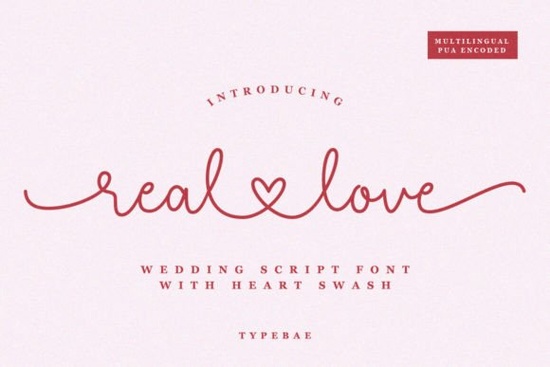
When you're planning a wedding project and need a script font that feels genuinely romantic, Real Love Font immediately comes to mind. This handwriting font exudes warmth and charm, with delicate swashes at the start and end of each stroke, plus lovely letter alternates that give you flexibility. Its standout feature is the heart-shaped connecting swashes that link letters, adding a sweet, handcrafted touch that’s perfect for invitations, signs, and personalized keepsakes.
What makes Real Love Font different from other script fonts?
Many script fonts mimic calligraphy but lack the extra personality that makes a design feel special. Real Love Font goes a step further with its built-in heart swashes. Instead of a simple loop connection between letters, you get a tiny heart shape that ties the word together. This works beautifully for words like “love,” “you,” “dear,” and other wedding staples. The font also includes alternate characters for certain letters, so you can mix and match styles to create a custom look without needing design software like Photoshop or Illustrator.
How can you use Real Love Font in real projects?
Wedding invitations are the obvious use, but this font also shines on:
- Save-the-date cards Use the heart swashes on “join” or “us” for a subtle romantic detail.
- Welcome signs and seating charts Large text with heart connections becomes a focal point.
- Thank-you notes A short, handwritten-style message feels personal and less formal.
- Favors and tags Adding a small heart swash to a guest’s name turns a generic tag into a keepsake.
- Social media graphics A calligraphy overlay on a photo with a heart tie-in stands out on Instagram or Pinterest.
Print-on-demand sellers can create mugs, pillows, or framed prints with romantic quotes, while small business owners might use it for logo watermarks or branding on gift wrap. The font works best when paired with a clean sans-serif for secondary text, so the heart shapes don’t get lost.
Are there any tricks for using romantic script fonts in designs?
Yes a few simple tips can make your project look professional:
- Test letter spacing Heart swashes can crowd together if spacing is too tight. Increase tracking slightly to let each heart shape breathe.
- Use color contrast On white or cream backgrounds, a deep burgundy or dusty rose makes the heart swashes pop. For dark backgrounds, a metallic gold or copper works well.
- Combine with a secondary font Script fonts can be hard to read in long blocks. Use Real Love Font for headers and a simple serif like Lora or a clean sans like Open Sans for body text.
- Preview the alternates The font includes several alternate glyphs. Open the character map (Font Book on Mac, Character Map on Windows) to see which letters have heart swash options. Not every letter will have one, so plan your wording around the available alternates.
What’s the easiest way to get started with Real Love Font?
- Type a short word like “love” or “dear” at a large point size (72pt or higher).
- Check if the heart swash appears automatically some connectors only show in specific letter pairs (like “lo” or “ve”).
- If you don’t see the heart, look for the alternate character in the glyph panel. Many font files include a separate swash version of certain letters.
- Print a test sample on cardstock to see how the thin strokes and heart details hold up in ink.